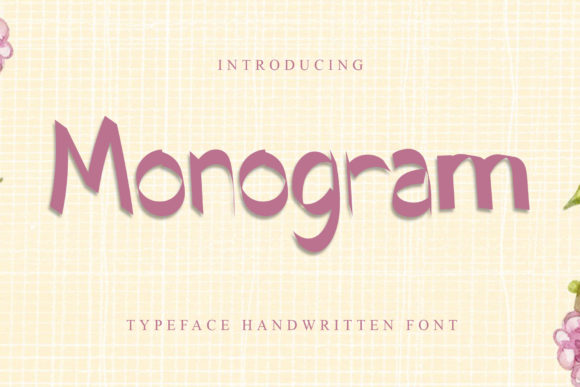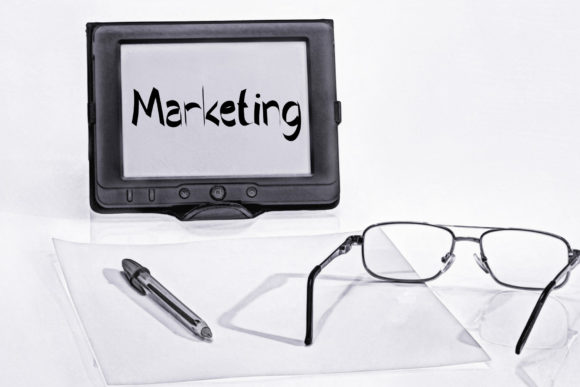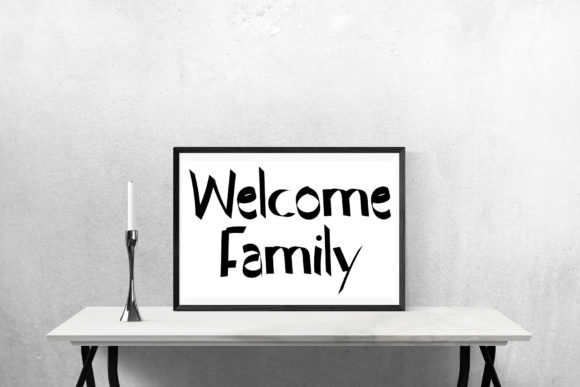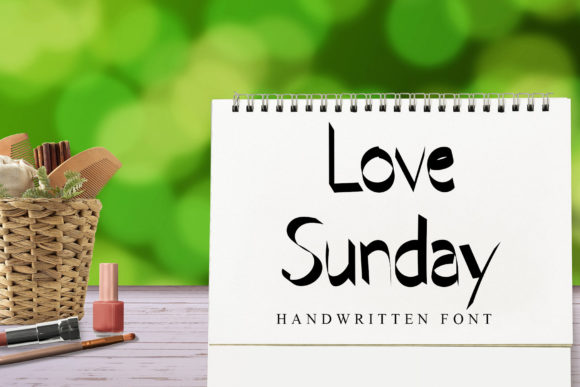
Monogram Font
About Monogram Font
Monogram is a sweet and friendly handwritten font. Its natural and unique style makes it incredibly fitting to a large pool of designs. Have fun with this beautiful font and explore its endless variations.